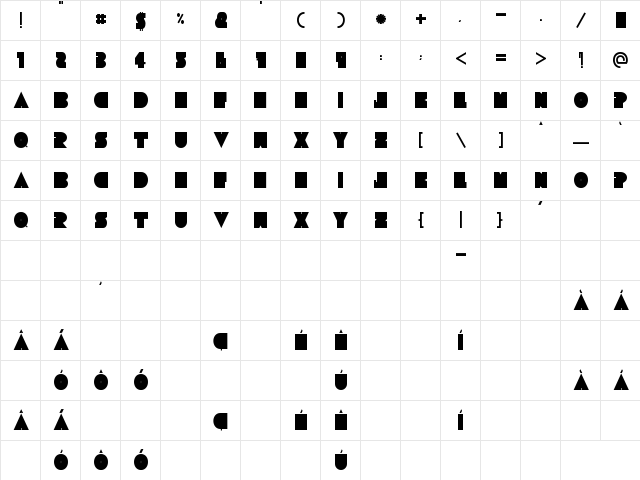
Tresdias Black Regular
Design Context for Tresdias Black Typeface
Tresdias Black is a composed and adaptable typeface that performs quietly and consistently across a wide range of design contexts.